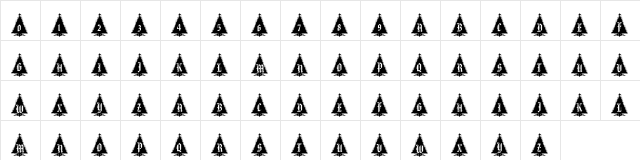
pf_xmas_tree4 Regular Font Preview
pf_xmas_tree4 Regular
pf_xmas_tree4 Regular Font Details
Design Context for pf_xmas_tree4 Typeface
pf_xmas_tree4 is a composed and adaptable typeface that performs quietly and consistently across a wide range of design contexts.